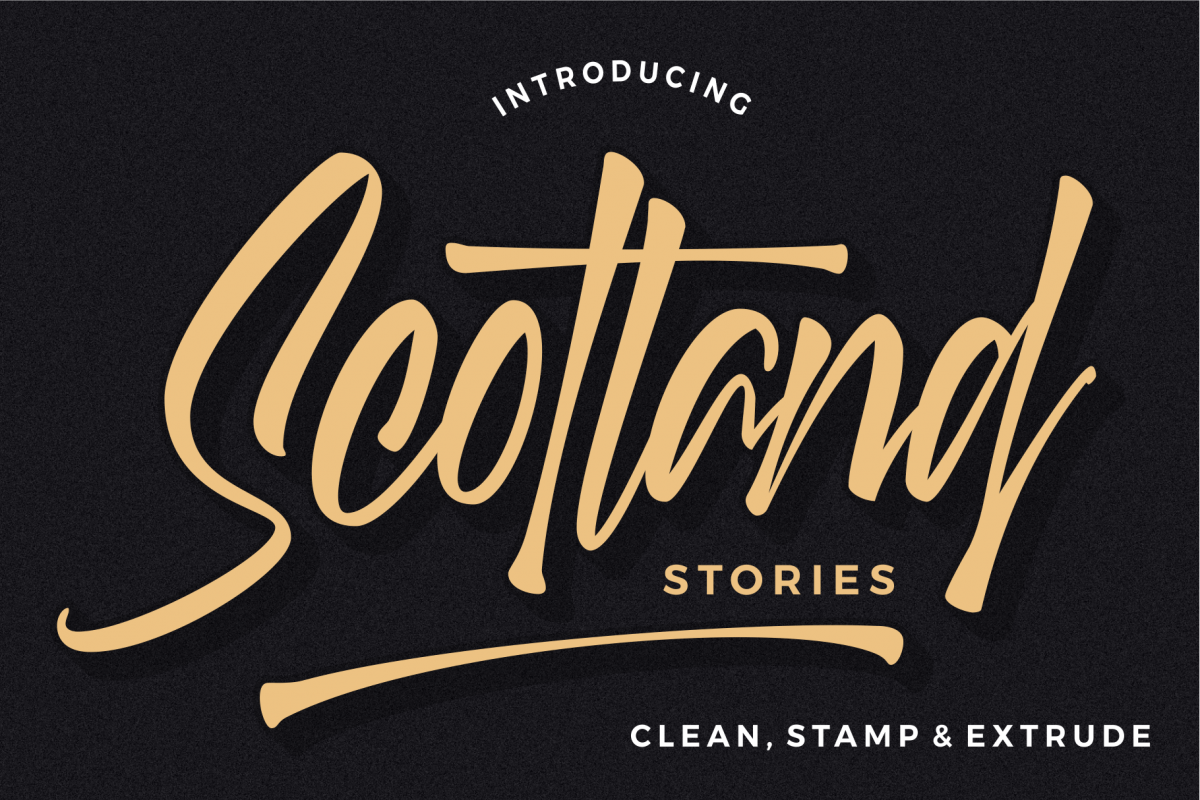
Scotland stories font
Introducing, Scotland stories A Modern Script Typace with fast brush strokes and signature styles, making this font look unique and elegant. Scotland stories comes with upper and lowercase Basic Characters, alternates for each lowercase letter, Numbers, Marks, Punctuation, Ligatures and Swashes.